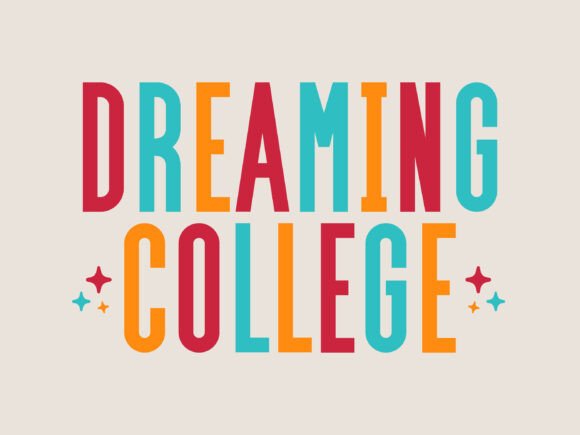
Dreaming College Font: The Perfect Choice for Adding a Fun Vibe to Your Projects
Are you looking for a font that can bring a cheerful and playful touch to your projects? Look no further than the Dreaming College font. This delightful font is designed to add a fun vibe to any project, making it perfect for posters, school projects, and anything that needs a happy, uplifting look.
What Makes Dreaming College Font So Special?
The Dreaming College font is a unique and charming typeface that stands out from the crowd. Its rounded, friendly letters are designed to evoke a sense of happiness and approachability, making it perfect for projects that need a playful touch. Here are some of the key features that make this font so special:
- Rounded Letters: The Dreaming College font features rounded letters that give it a soft and friendly feel. This makes it perfect for projects that need a gentle, approachable look.
- Playful Vibe: The font has a playful vibe that’s perfect for adding a touch of whimsy to your projects. Whether you’re working on a poster, a school project, or a fun DIY project, this font is sure to bring a smile to people’s faces.
- Highly Versatile: The Dreaming College font is highly versatile, making it suitable for a wide range of projects. Whether you’re working on a formal or informal project, this font is sure to fit the bill.
Ideas for Using the Dreaming College Font
The Dreaming College font is perfect for a wide range of projects, including:
- Posters: Add a fun and playful touch to your posters with the Dreaming College font. Whether you’re promoting a event, a product, or a service, this font is sure to grab people’s attention.
- School Projects: The Dreaming College font is perfect for school projects, such as presentations, reports, and essays. Its friendly and approachable feel makes it suitable for projects that need a gentle touch.
- DIY Projects: If you’re working on a DIY project, such as a craft, a recipe, or a tutorial, the Dreaming College font is a great choice. Its playful vibe is sure to add a touch of whimsy to your project.
- Social Media Graphics: Use the Dreaming College font to create fun and engaging social media graphics, such as Facebook posts, Instagram stories, and Twitter headers.
The Benefits of Using the Dreaming College Font
The Dreaming College font offers a range of benefits, including:
- Unique and Eye-Catching: The Dreaming College font is a unique and eye-catching typeface that’s sure to stand out from the crowd.
- Easy to Read: The font is easy to read, even at small sizes, making it perfect for projects that need to convey a lot of information.
- Highly Customizable: The Dreaming College font is highly customizable, allowing you to adjust the font size, color, and style to suit your project’s needs.
Tips and Tricks for Using the Dreaming College Font
Here are some tips and tricks for getting the most out of the Dreaming College font:
- Use it with a Contrasting Background: Use the Dreaming College font with a contrasting background to make it stand out.
- Experiment with Different Sizes: Experiment with different font sizes to find the perfect balance for your project.
- Pair it with Other Fonts: Pair the Dreaming College font with other fonts to create a unique and interesting look.
- Use it for Headings: Use the Dreaming College font for headings and titles to add a touch of whimsy to your project.
The Dreaming College font is a unique and charming typeface that’s perfect for adding a fun and playful touch to your projects. Its rounded, friendly letters and playful vibe make it suitable for a wide range of projects, from posters and school projects to DIY projects and social media graphics. With its ease of use, high customizability, and free availability, the Dreaming College font is a great choice for anyone looking to add a touch of whimsy to their projects.